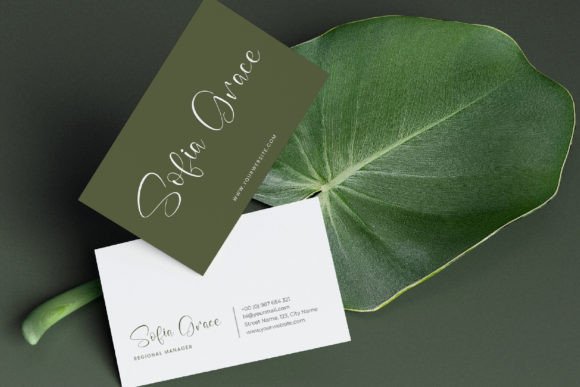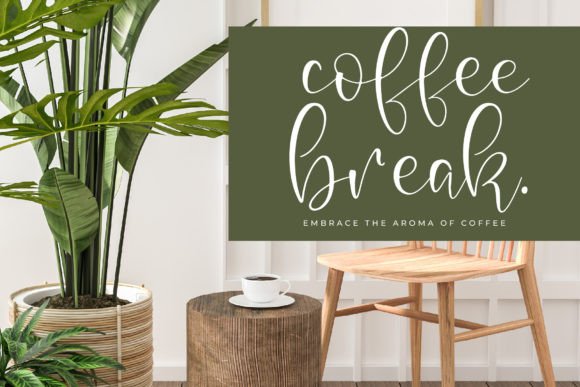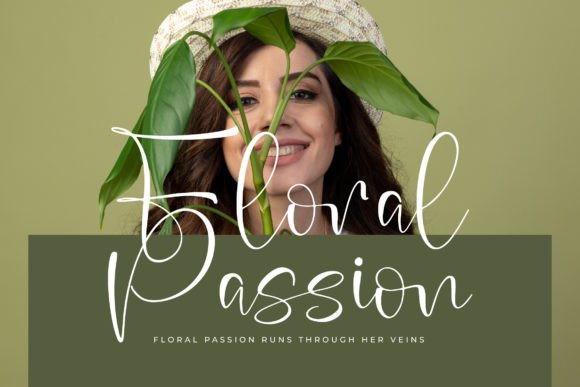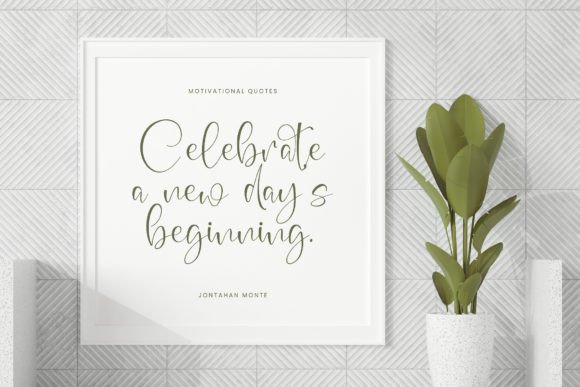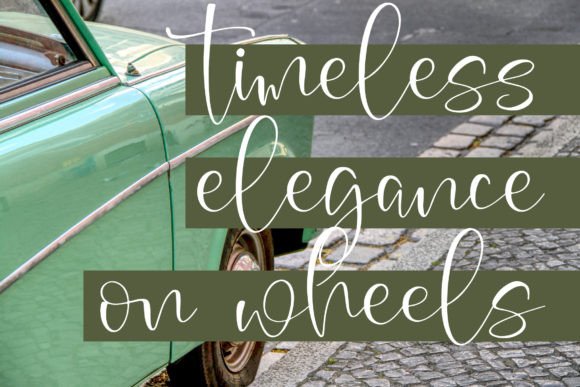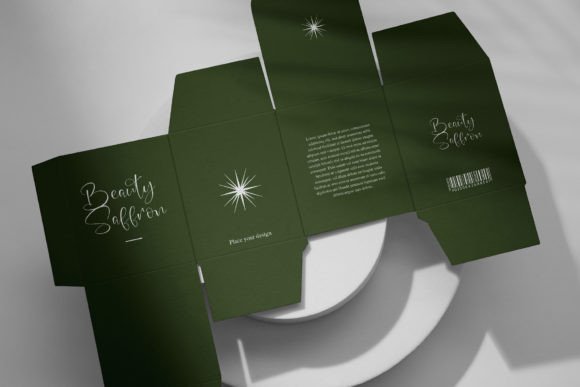
Introducing Beauty Sungold: The Ultimate Elegant Handwritten Font
Are you looking for a font that exudes elegance, sophistication, and personality? Look no further than Beauty Sungold, a modern and charming handwritten font that is perfect for upscale invitations, personal branding, and chic editorial designs. With its graceful, flowing strokes and refined character, Beauty Sungold is sure to elevate your projects to new heights.
Handwritten fonts have a unique charm and character that digital fonts often lack. They add a personal touch to any design, making it more relatable and engaging. Beauty Sungold is a beautiful example of a handwritten font that has been crafted with love and care to bring a touch of elegance and sophistication to your designs.
What Makes Beauty Sungold Special?
Beauty Sungold is more than just a font – it’s an experience. Its flowing strokes and refined character make it perfect for a wide range of applications, from upscale invitations and personal branding to chic editorial designs and more. Here are just a few reasons why Beauty Sungold stands out:
- Elegant and Sophisticated: Beauty Sungold has a refined, sophisticated character that is perfect for high-end designs.
- Handwritten Charm: The font’s handwritten strokes add a personal touch to any design, making it more relatable and engaging.
- Versatile: Beauty Sungold can be used for a wide range of applications, from invitations and branding to editorial designs and more.
- Easy to Read: Despite its elegant character, Beauty Sungold is easy to read, making it perfect for body text and headlines.
Uses for Beauty Sungold
Beauty Sungold is a versatile font that can be used for a wide range of applications. Here are just a few ideas to get you started:
- Upscale Invitations: Use Beauty Sungold to create elegant and sophisticated invitations for weddings, parties, and other special events.
- Personal Branding: Beauty Sungold is perfect for personal branding, adding a touch of elegance and sophistication to your business cards, website, and social media.
- Chic Editorial Designs: Use Beauty Sungold to add a touch of elegance and refinement to your editorial designs, from magazine covers to articles and more.
- Packaging Design: Beauty Sungold can be used to create elegant and sophisticated packaging designs for luxury brands.
Tips for Using Beauty Sungold
Here are a few tips for getting the most out of Beauty Sungold:
- Use it Sparingly: Beauty Sungold is a elegant and sophisticated font, so use it sparingly to avoid overwhelming your design.
- Pair it with Other Fonts: Beauty Sungold pairs well with other fonts, so don’t be afraid to experiment with different combinations.
- Experiment with Colors: Beauty Sungold looks great in a variety of colors, so experiment with different colors to find the one that works best for your design.
Key Features of Beauty Sungold
| Font Type | Handwritten |
| Font Style | Script |
| Characters | Uppercase, Lowercase, Numbers, Punctuation |